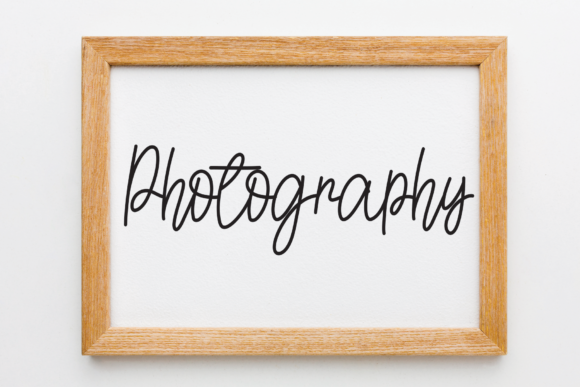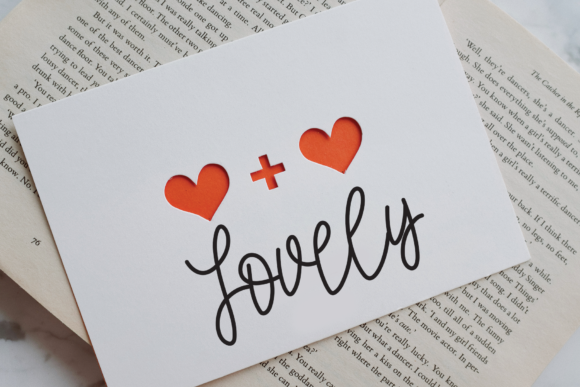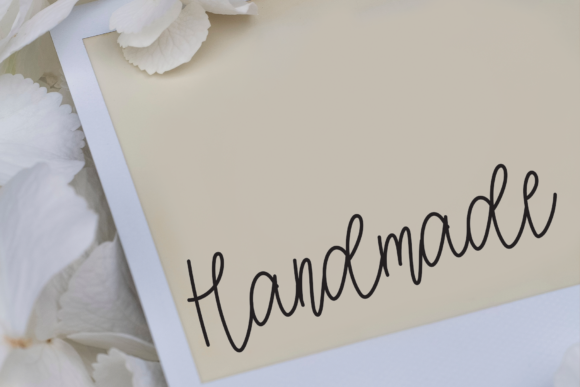
About Boho Font
Boho is a charming and elegant font that brings a touch of beauty and sophistication to a wide range of design projects. Whether you’re working on wedding invitations, thank you cards, quotes, greeting cards, logos, business cards, or any other design that requires a handwritten touch, Boho will make them look stunning.
The font’s charming and elegant characters are carefully crafted to exude a sense of whimsy and grace. Its fluid and organic style adds a unique and personalized touch to your designs, making them visually captivating. With Boho, you can create designs that evoke a bohemian and free-spirited vibe.
In wedding invitations, Boho creates a romantic and enchanting atmosphere. Its delicate and flowing letters bring a sense of elegance and individuality to your invitation design. The font’s artistic flair and handcrafted look make it perfect for capturing the essence of a boho-inspired wedding.
Thank you cards and greeting cards are elevated with the addition of Boho. The font’s handwritten appearance adds a personal and heartfelt touch to your messages. Its graceful curves and flowing lines create a visually appealing and expressive design, making your cards stand out and leaving a lasting impression.
When it comes to quotes and inspirational designs, Boho adds a touch of charm and elegance. Its organic and hand-drawn style brings a sense of authenticity and warmth to the words. Whether it’s a motivational quote or a meaningful phrase, Boho helps create a visually captivating and inspiring design.
In logos and business cards, Boho brings a unique and artisanal look. Its handwritten aesthetic adds a sense of personality and creativity to your brand identity. The font’s elegant and flowing characters create a distinctive and memorable logo or business card design, helping your brand make a lasting impression.
Overall, Boho is a versatile and captivating font that adds a charming and elegant touch to various design projects. Its handcrafted and handwritten style brings a sense of authenticity and individuality to your creations. Embrace the charm of Boho and let it enhance your wedding materials, heartfelt cards, inspiring quotes, and professional branding with its whimsical beauty.